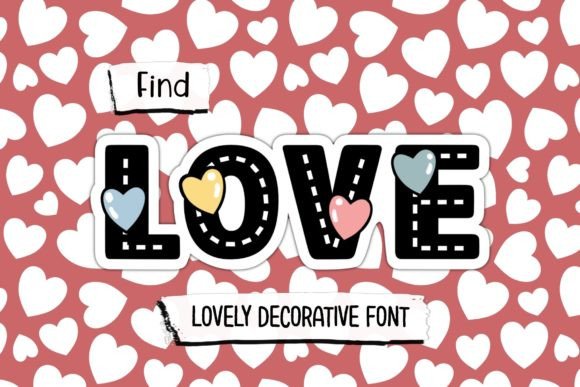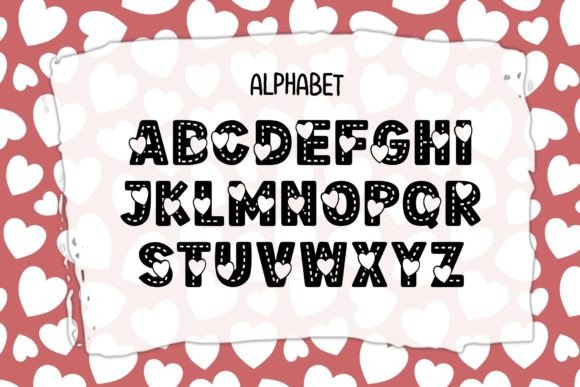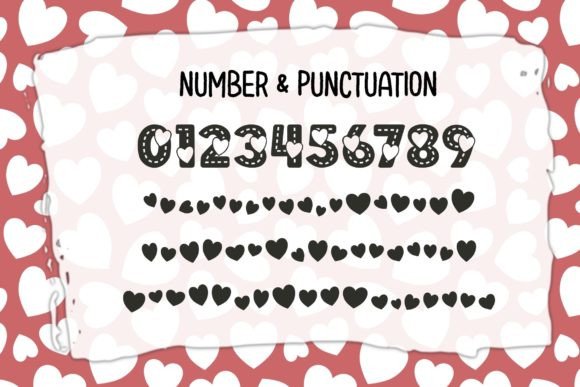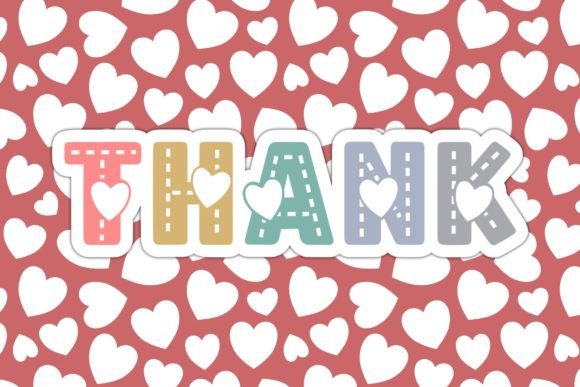
Find Love Font
About the Find Love Font
Introducing the Find Love Font, a beautifully crafted typeface designed to elevate your creative projects. Find Love is a lovely decorative font. Use it for branding projects, invitations, web graphics, cards, and many more!
Find Love’s decorative style shines in headlines, short text blocks on invitations or greeting cards, and as an accent in logos. It’s ideal for projects needing a touch of romantic whimsy, such as wedding-related materials or branding for businesses focused on beauty, fashion, or the arts. However, its intricate details make it less suitable for body text or UI elements where readability is paramount. Avoid using it for lengthy paragraphs or small sizes.
Pairing Find Love with a clean sans-serif like Open Sans for body text creates a balanced and sophisticated design. Alternatively, a classic serif font such as Garamond can add a layer of timeless elegance. For a more playful effect, consider pairing it with a handwritten script font, but ensure legibility remains a priority.
The font projects a friendly and romantic personality, perfect for conveying feelings of love, happiness, and celebration. Its decorative nature lends itself well to projects that need a touch of charm and elegance, rather than strict professionalism.
Find Love Font Usage Examples
Find Love Font Example